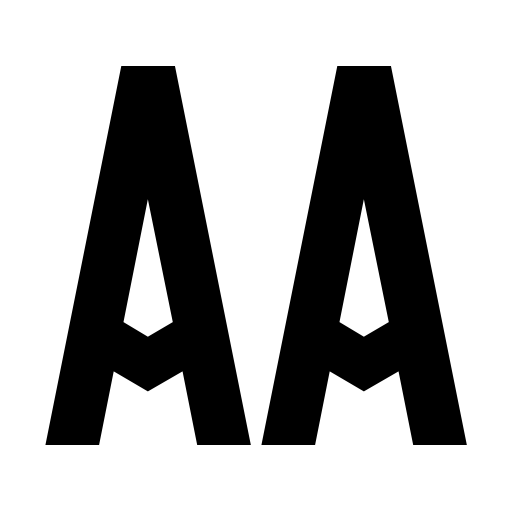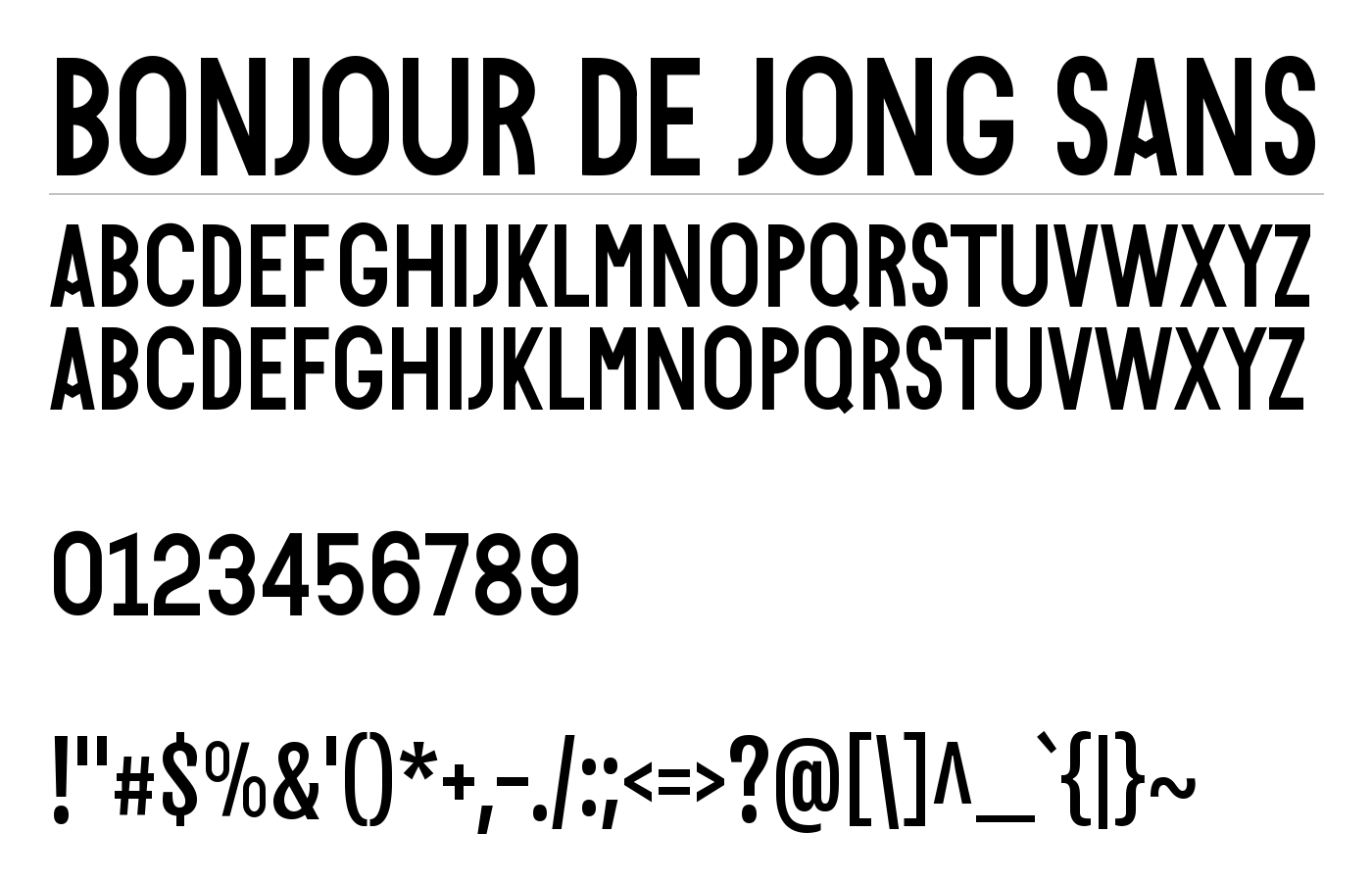
Bonjour De Jong is a tall, condensed sans serif typeface with a clean, modern feel, characterized by uniform stroke weight and slightly rounded corners. Its uppercase-only style, with distinctive letterforms like the stylized 'A' and geometric shapes, lends a strong, professional presence ideal for headlines, branding, and editorial use where clarity and impact matter. This font works well for contemporary designs seeking a sleek, confident look.
Bonjour De Jong Font
About Bonjour De Jong Font